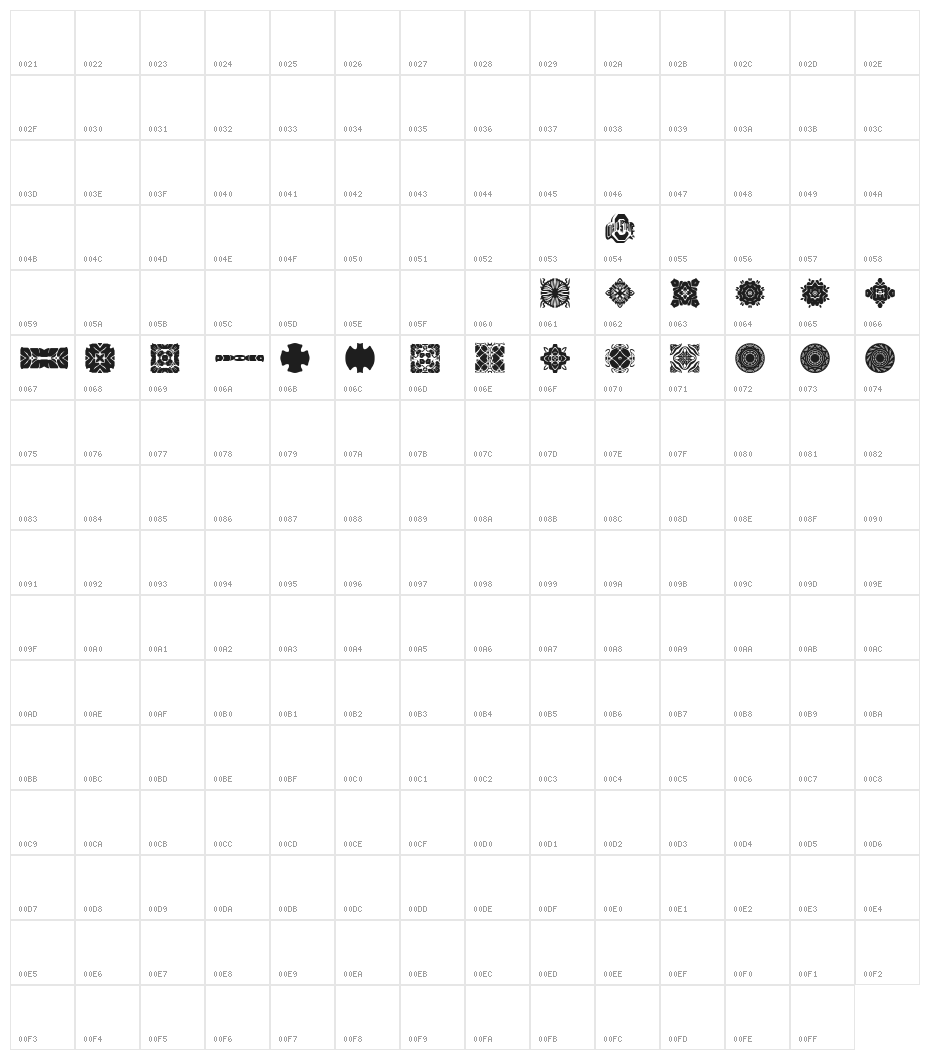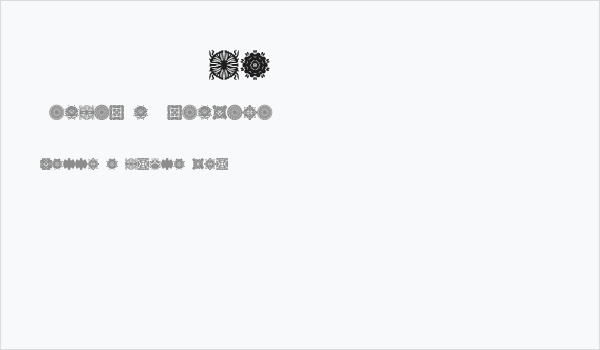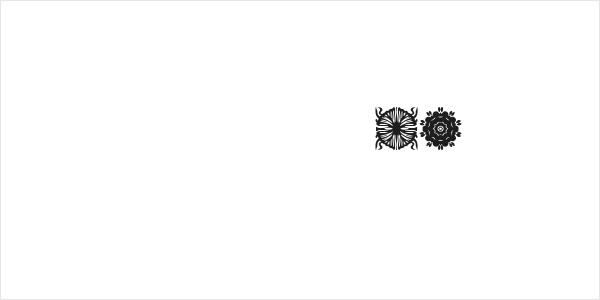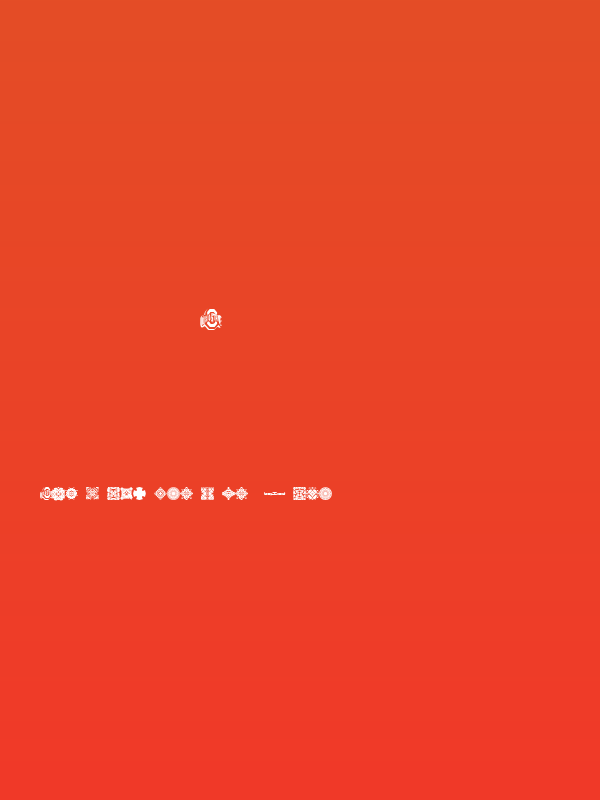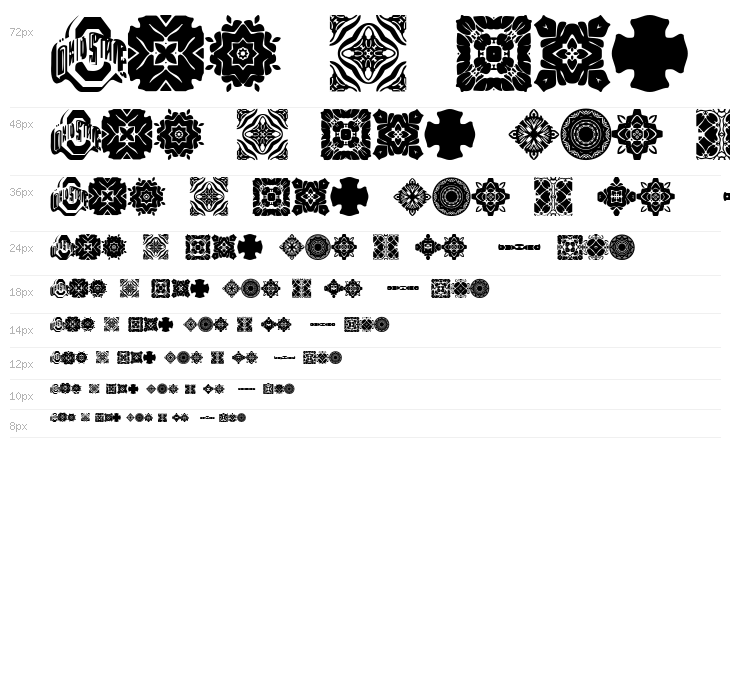
BR 4 My Dad Font
BR 4 My Dad Description
A decorative dingbat font featuring intricate geometric and floral patterns, ornamental tiles, and a stylized emblem. The glyphs are highly detailed, with bold black and white contrasts and symmetrical designs, suitable for borders, dividers, or decorative accents.
| Use Case | Decorative elements, borders, embellishments |
| Proposed Projects | Invitations, certificates, decorative borders, scrapbooking, crafts, branding accents. |